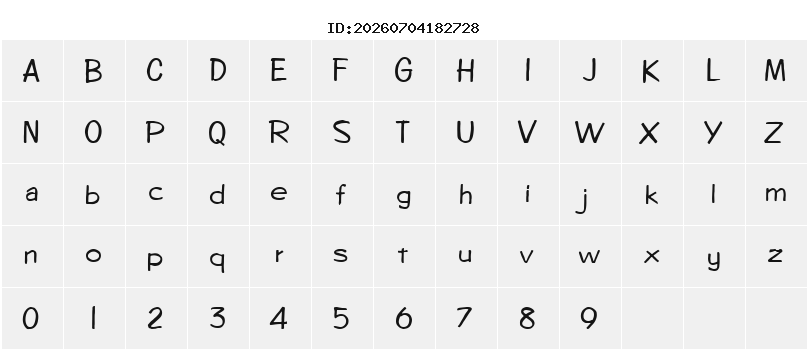
Dreamscapes 3 Preview
About Dreamscapes 3.ttf
Dreamscapes 3.ttf is a modern, elegant sans-serif font designed for ultimate readability and visual harmony. Perfect for branding, headlines, web design, and print materials.